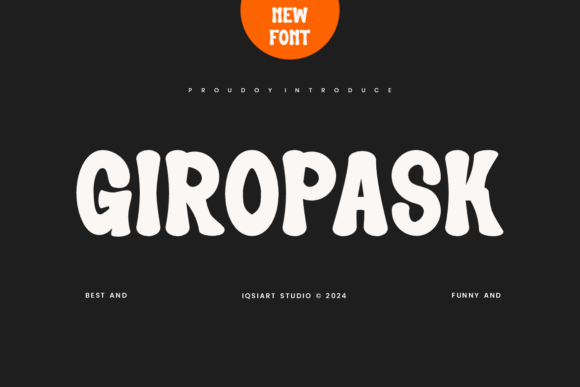
Introducing Giropask Font: The Ultimate Choice for Fun and Playful Designs
Are you looking for a font that can add a touch of playfulness and charm to your designs? Look no further than Giropask Font. This bold and quirky display font is perfect for fun projects, including logos, children’s designs, posters, and social media graphics. In this article, we’ll take a closer look at Giropask Font and explore its features, benefits, and uses.
What is Giropask Font?
Giropask Font is a display font that features rounded, cartoon-like shapes that give it a unique and playful look. The font is designed to radiate playfulness and charm, making it perfect for designs that require a fun and cheerful aesthetic. Its bold and quirky style makes it stand out from other fonts, and its versatility ensures that it can be used in a variety of design projects.
Key Features of Giropask Font
- Rounded and Cartoon-like Shapes: Giropask Font features rounded, cartoon-like shapes that give it a playful and fun look.
- Bold and Quirky Style: The font has a bold and quirky style that makes it perfect for designs that require a touch of uniqueness.
- Perfect for Fun Projects: Giropask Font is ideal for fun projects, including logos, children’s designs, posters, and social media graphics.
- Retro and Cheerful Aesthetic: The font can add a retro vibe or a cheerful aesthetic to your designs, depending on how you use it.
Benefits of Using Giropask Font
- Unique and Playful Look: Giropask Font gives your designs a unique and playful look that sets them apart from others.
- Versatility: The font is versatile and can be used in a variety of design projects, from logos to social media graphics.
- Easy to Read: Despite its bold and quirky style, Giropask Font is easy to read, making it perfect for designs that require a clear and concise message.
Uses of Giropask Font
Giropask Font is perfect for a variety of design projects, including:
- Logos: The font is ideal for logos that require a bold and playful look.
- Children’s Designs: Giropask Font is perfect for children’s designs, such as book covers, posters, and activity sheets.
- Posters: The font is great for posters that require a bold and eye-catching headline.
- Social Media Graphics: Giropask Font can add a touch of playfulness and charm to your social media graphics, making them stand out from the crowd.
Tips for Using Giropask Font
- Use it for Headlines: Giropask Font is perfect for headlines that require a bold and playful look.
- Experiment with Colors: The font looks great in a variety of colors, so don’t be afraid to experiment and find the perfect color for your design.
- Pair it with Other Fonts: Giropask Font can be paired with other fonts to create a unique and interesting look.
- Keep it Simple: While Giropask Font is bold and playful, it’s best to keep your design simple and clean to ensure that the font is the focus.
Giropask Font is a bold and quirky display font that radiates playfulness and charm. Its rounded, cartoon-like shapes make it perfect for fun projects, including logos, children’s designs, posters, and social media graphics. Whether you’re aiming for a retro vibe or a cheerful aesthetic, Giropask Font will add a touch of uniqueness to your creations. With its versatility, ease of use, and customizable features, Giropask Font is the ultimate choice for designers who want to add a touch of playfulness and charm to their designs.
FAQs About Giropask Font
- What is Giropask Font? Giropask Font is a bold and quirky display font that features rounded, cartoon-like shapes.
- What is Giropask Font used for? Giropask Font is perfect for fun projects, including logos, children’s designs, posters, and social media graphics.
- Is Giropask Font easy to read? Yes, despite its bold and quirky style, Giropask Font is easy to read.
Giropask Font Specifications
- Font Type: Display Font
- Font Style: Bold and Quirky
- Font Features: Rounded, Cartoon-like Shapes
- Use Cases: Logos, Children’s Designs, Posters, Social Media Graphics